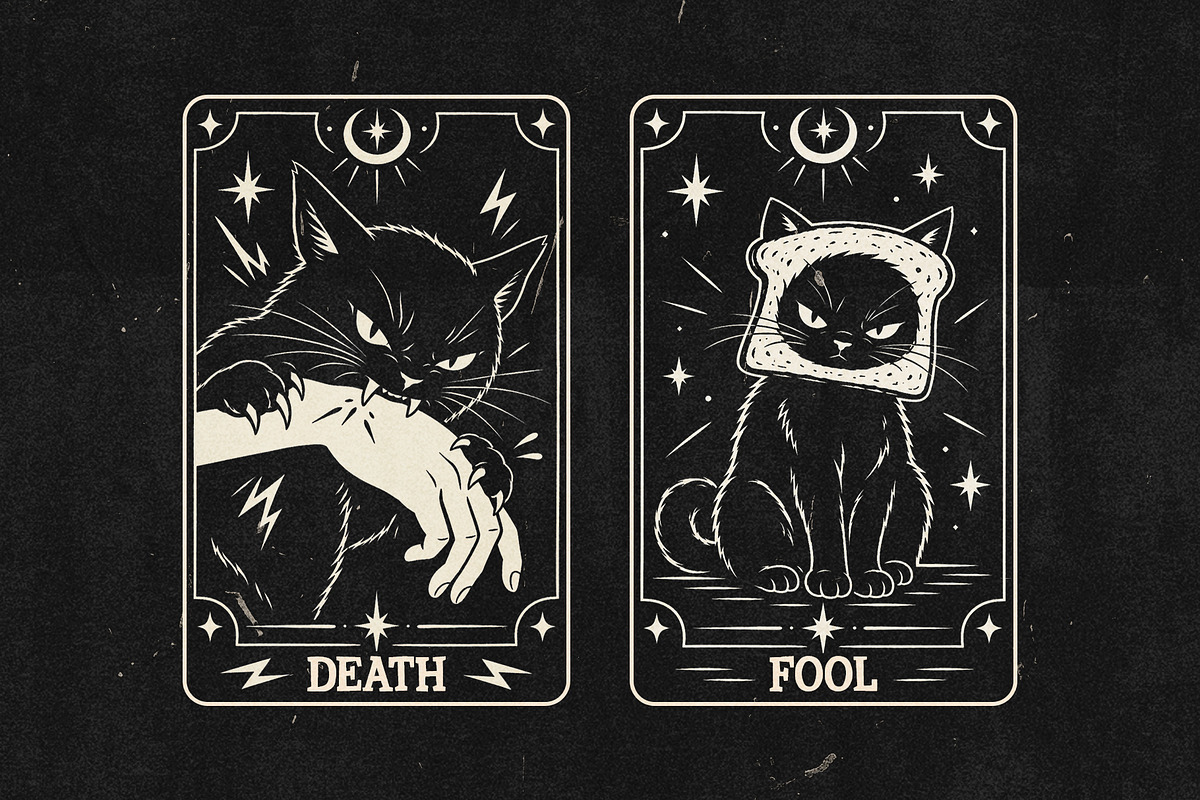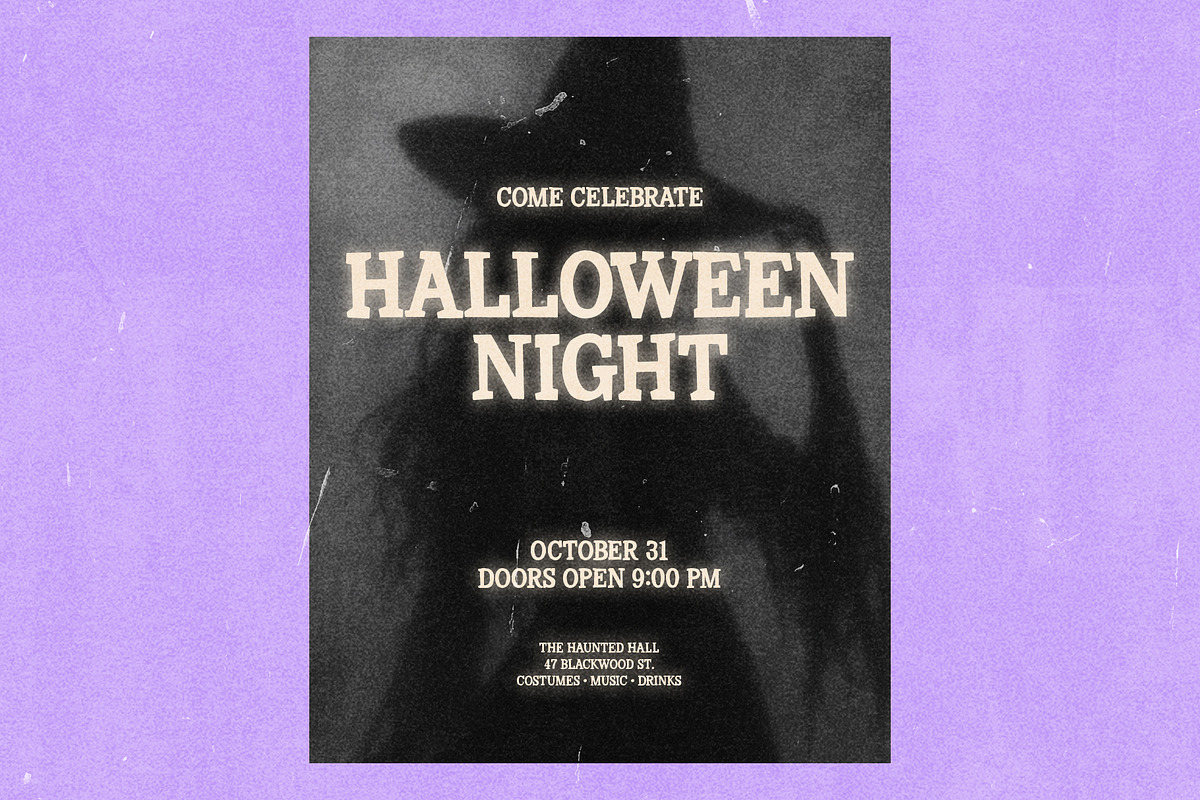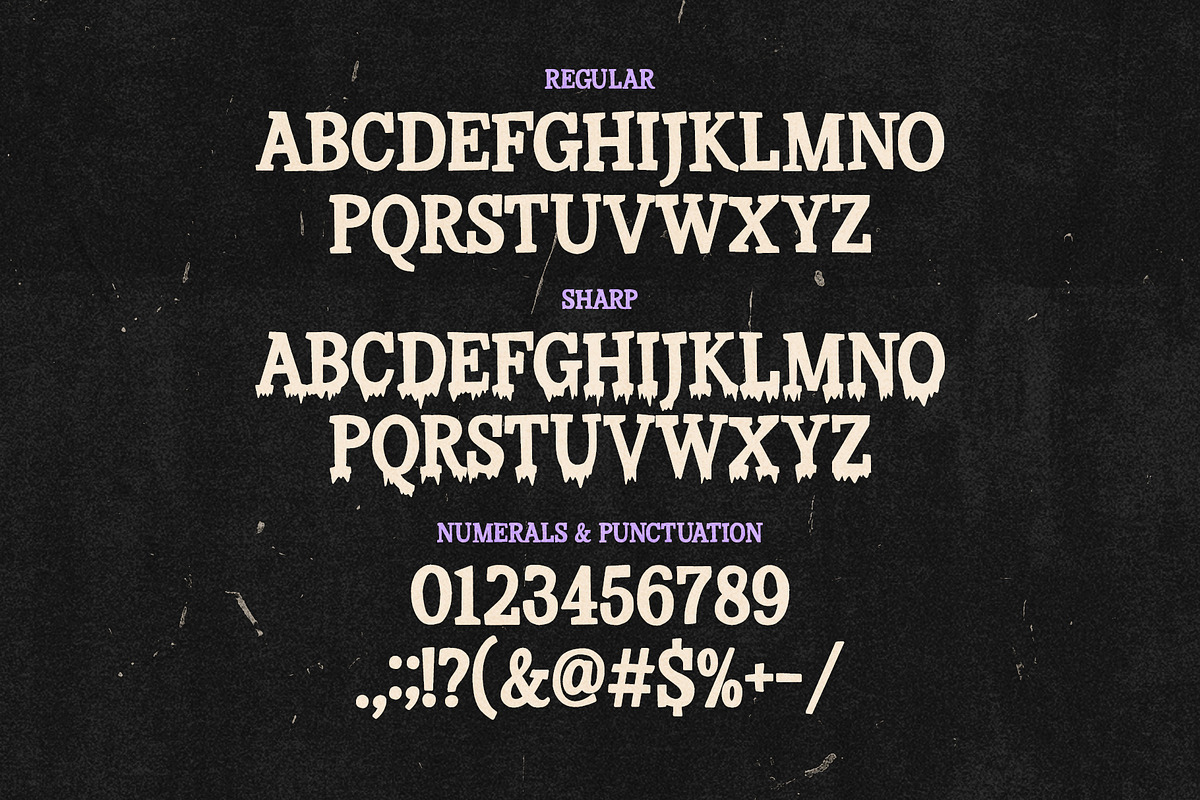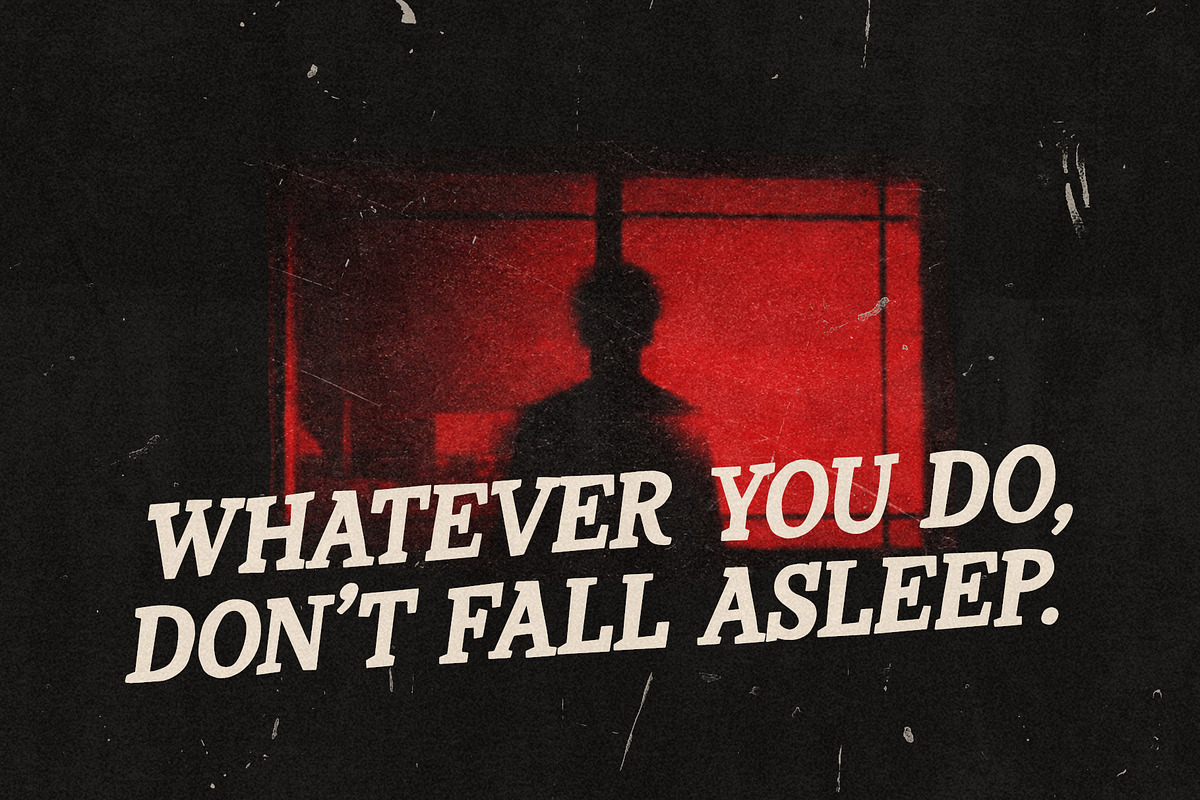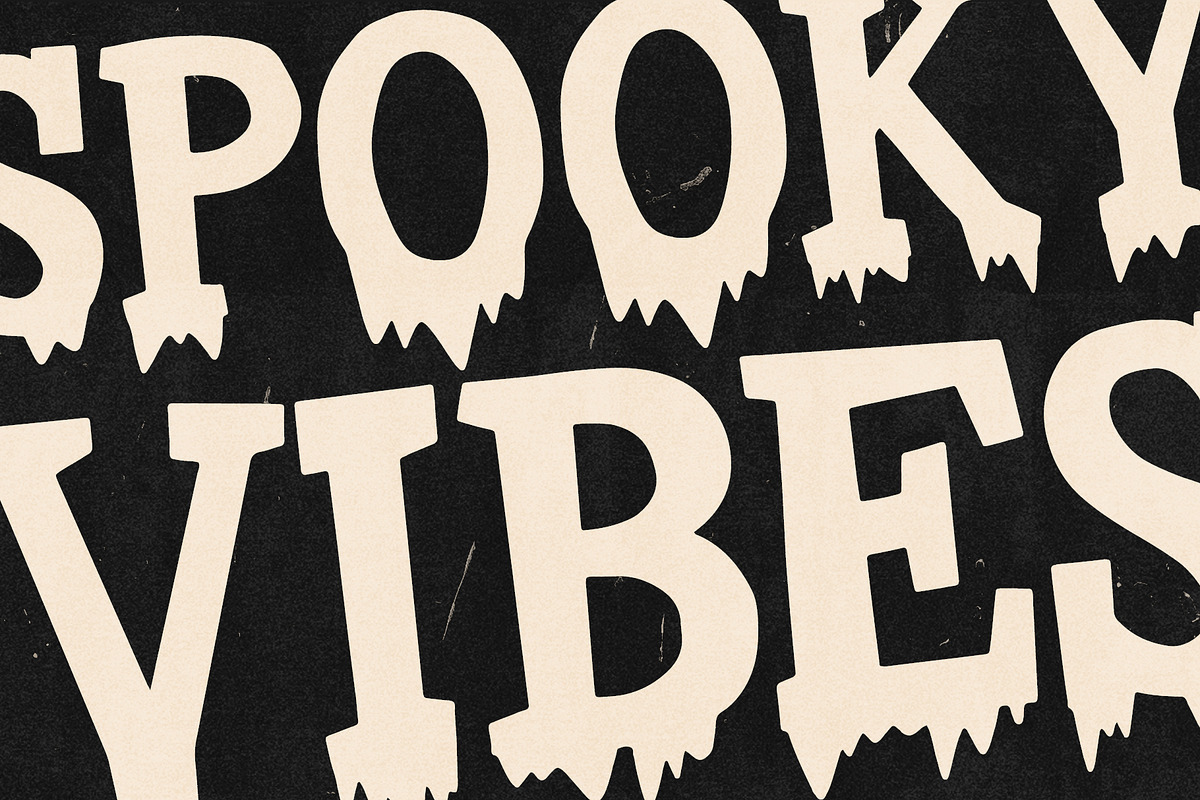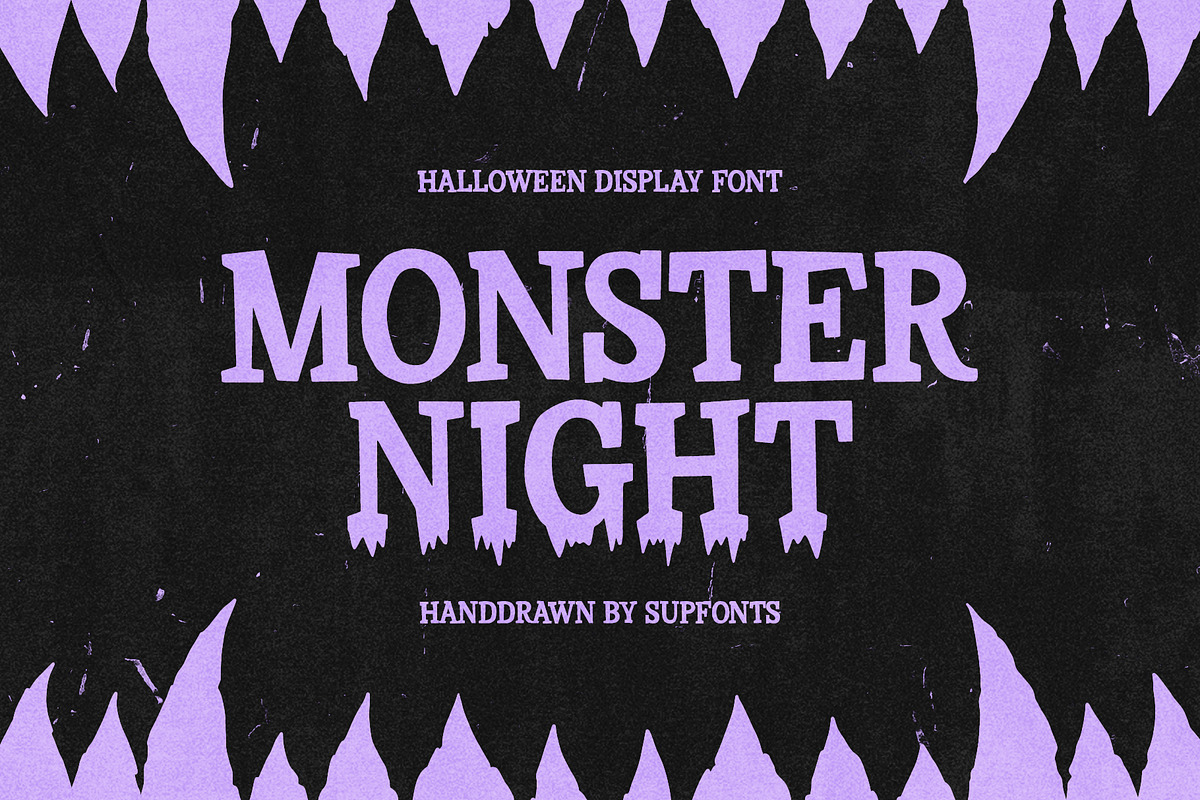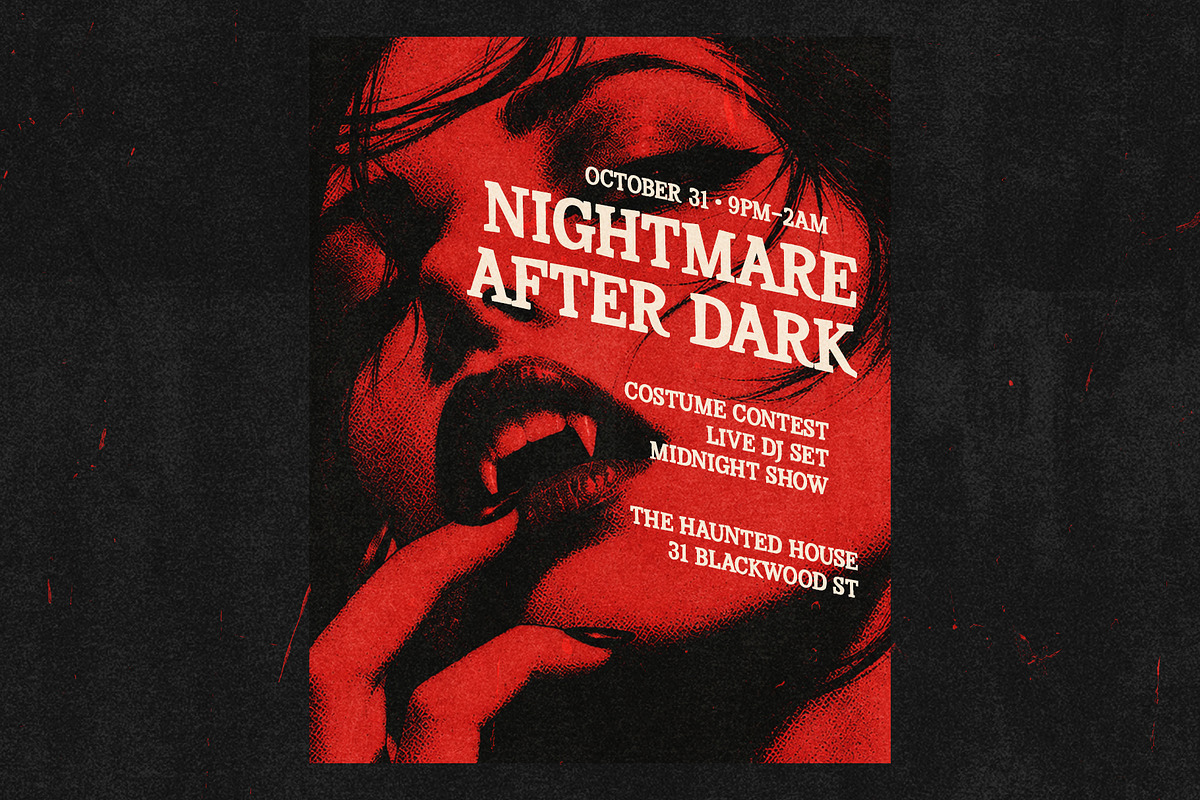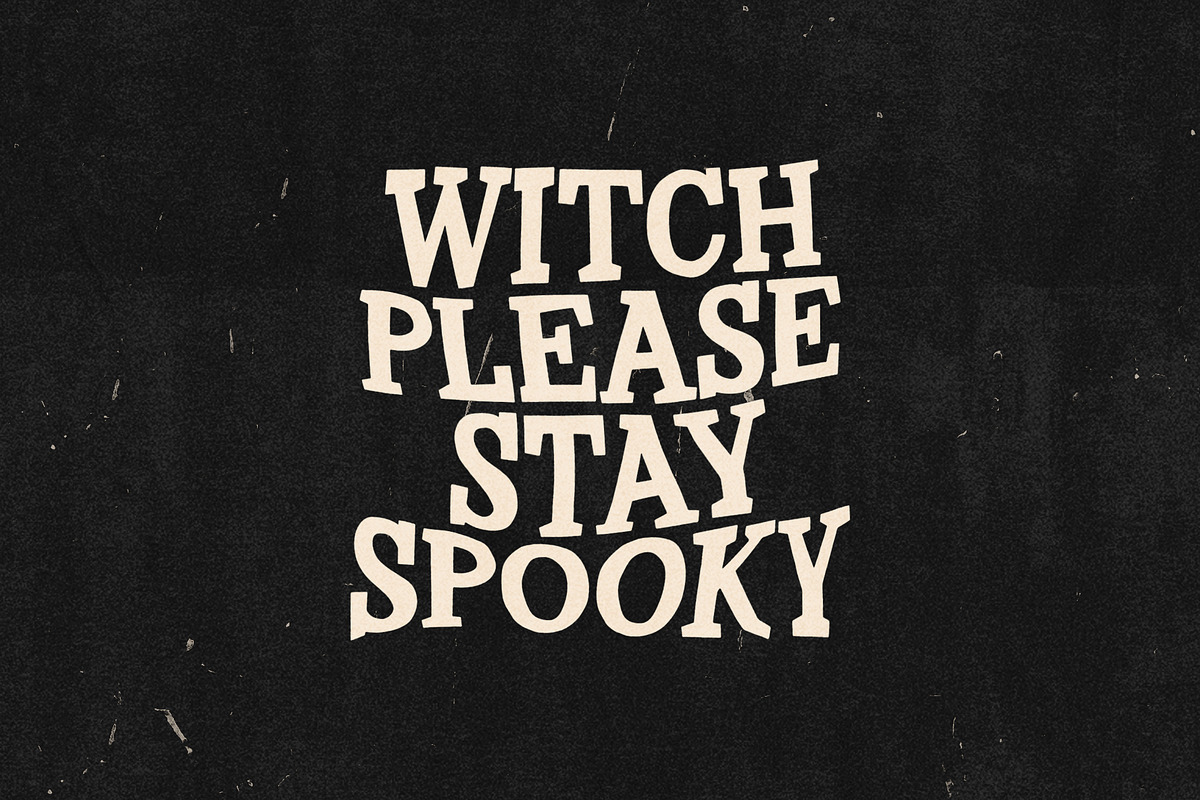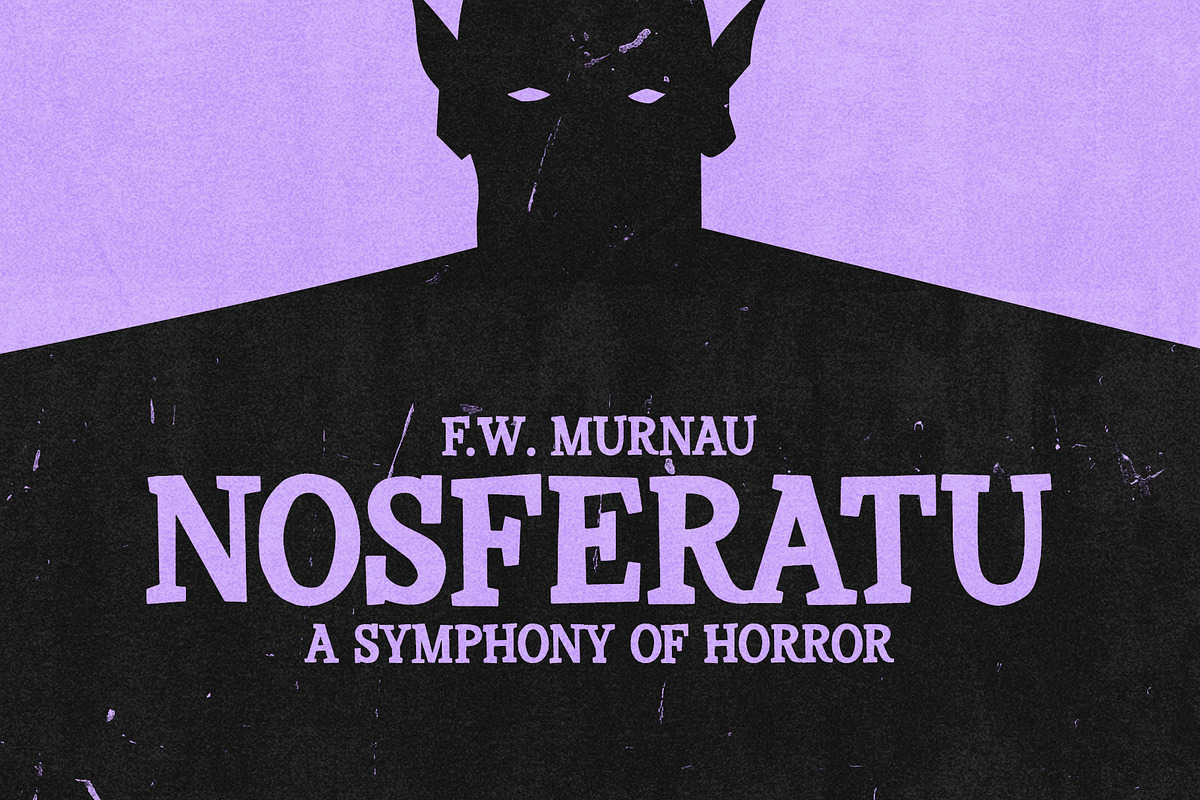
Monster Night Halloween Display
Monster Night is a hand-drawn display font with a bold vintage character and a slightly eerie, imperfect feel. Inspired by old horror posters, retro movie titles, pulp graphics, and handmade lettering, it works well far beyond Halloween.
The font includes two styles: Regular and Sharp. Regular has a strong vintage display look, while Sharp adds rough, jagged details for a more dramatic and expressive result.
Monster Night is a good fit for posters, editorial layouts, packaging, apparel, book covers, music artwork, event graphics, branding, social media, retro-inspired designs, and seasonal projects.